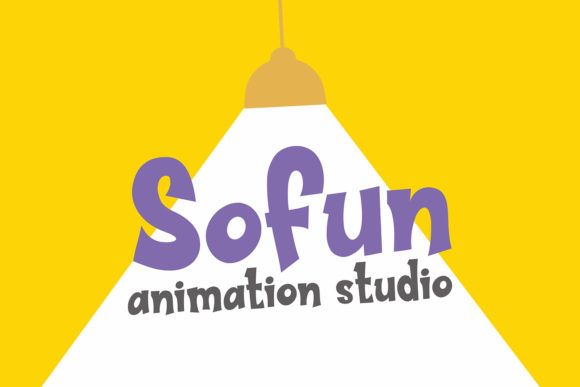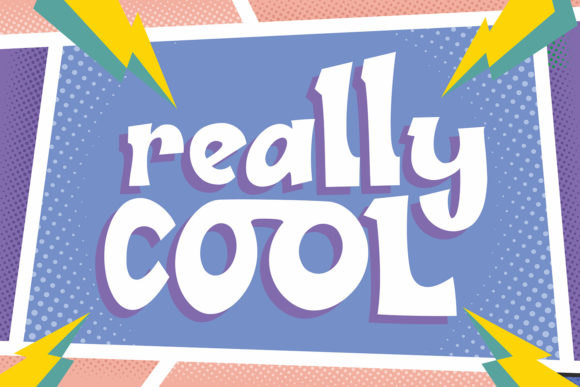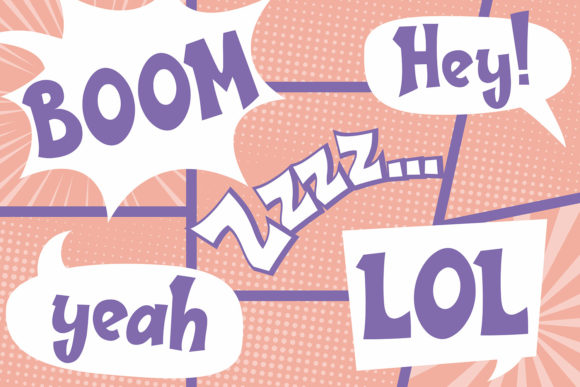
Introduction to Mobig Font
As a designer, have you ever found yourself stuck in a creative rut, struggling to find the perfect font to bring your project to life? I know I have. But what if I told you that there’s a font that can turn your designs from dull to dynamic in an instant? Meet Mobig Font, a cool, fun, and playful display font that’s about to become your new go-to design resource.
With its chunky lettering and PUA encoding, Mobig Font makes it easy to access all the glyphs and swashes you need to create high-quality designs. Whether you’re working on a free download project or a paid creative project, Mobig Font is the perfect addition to your design arsenal. And the best part? You can use it with a transparent background, giving you complete freedom to experiment with different design elements.
Key Features of Mobig Font
- High-quality design resource ideal for creative projects, including logos, icons, and graphics.
- Unique, custom-designed font with a transparent background, allowing for seamless integration into any design.
- Includes a wide range of characters, including letters, numbers, and symbols, to accommodate diverse creative needs.
- Designed to be scalable, with a resolution of up to 300 DPI, ensuring crisp and clear visuals even at larger sizes.
- Perfect for designers and artists working on creative projects, offering a versatile and stylish design element.
Honest Review: Mobig Font
I recently had the chance to work with the Mobig Font and I must say it’s a great addition to any designer’s toolkit. The high quality and unique design make it perfect for creative projects where you need something that stands out.
- ✨ High quality and detailed design that looks great at any size
- ✨ Transparent background, making it easy to overlay on any image or design
- ✨ Great for use in creative projects, such as posters, flyers, and brochures
- ⚠️ Limited character set, which may be a issue for designers who need a font with a wide range of characters
- ⚠️ Not suitable for use in large blocks of text, as it can be difficult to read at smaller sizes
Overall, I’m really impressed with the Mobig Font. It’s a great design resource that can add a unique touch to any creative project. While it may have some limitations, I think it’s definitely worth considering for your next design project.
Designing with Mobig Font
Getting the Most Out of Mobig Font
To get the most out of Mobig Font, use it with a transparent background to create a clean and modern design. You can also experiment with different font sizes and styles to add visual interest to your project.
Mobig Font is perfect for a variety of design projects, including:
- Poster design